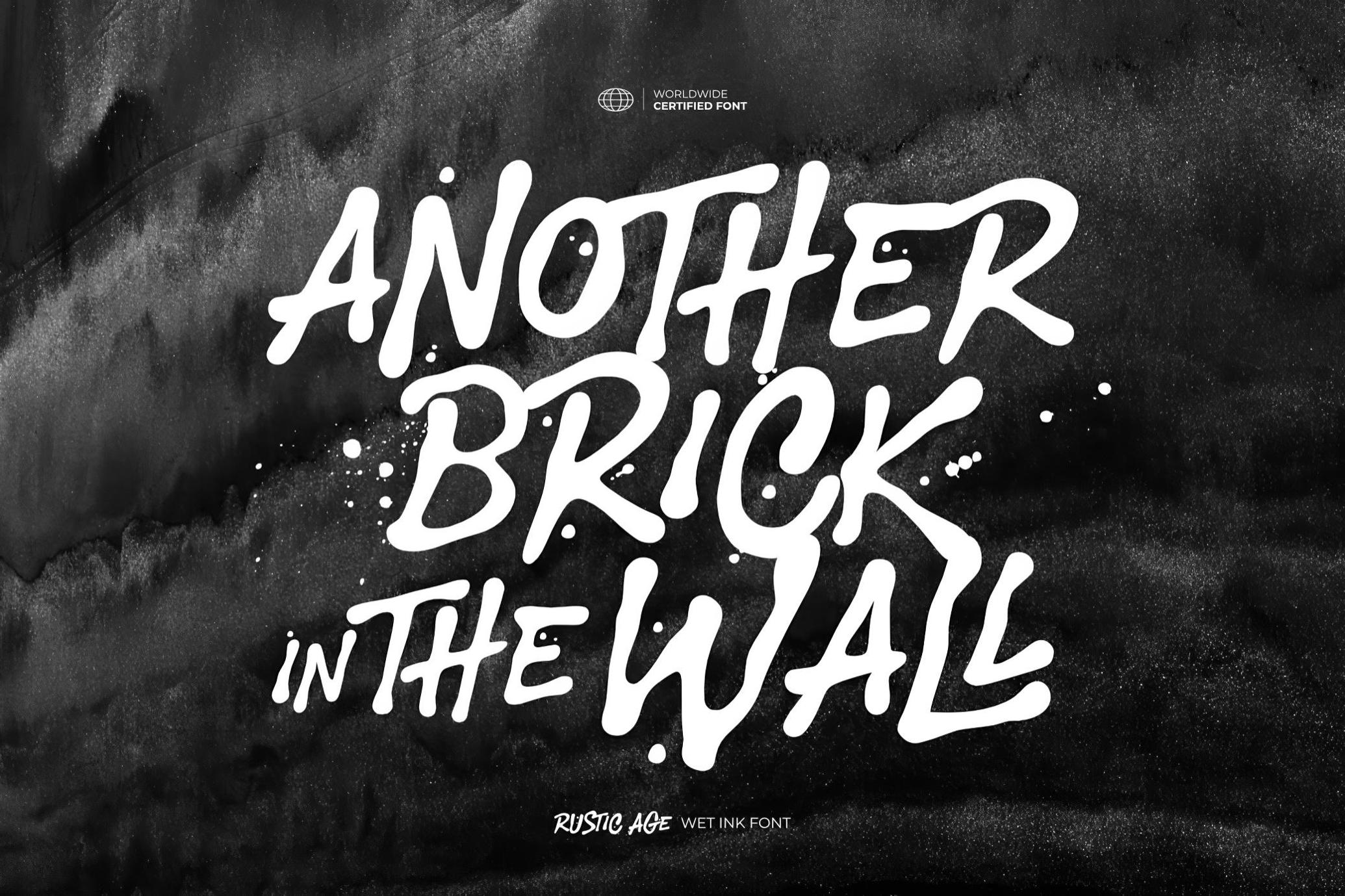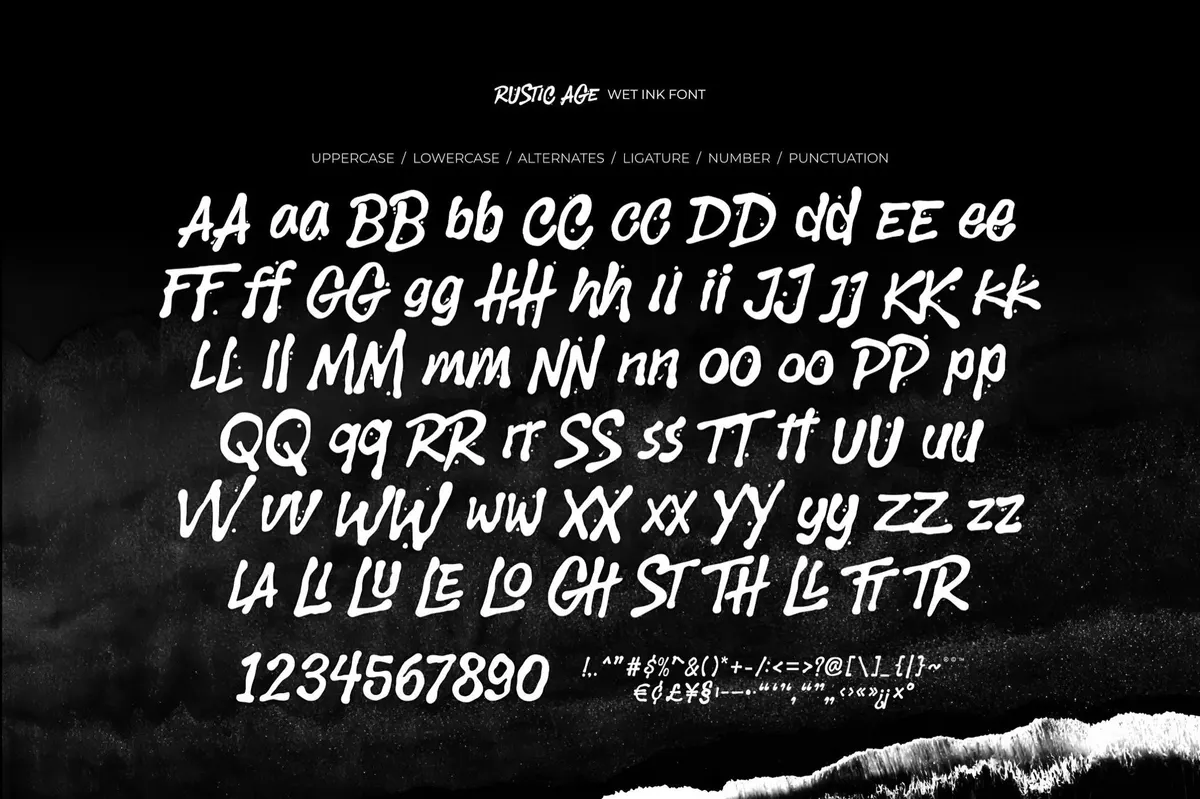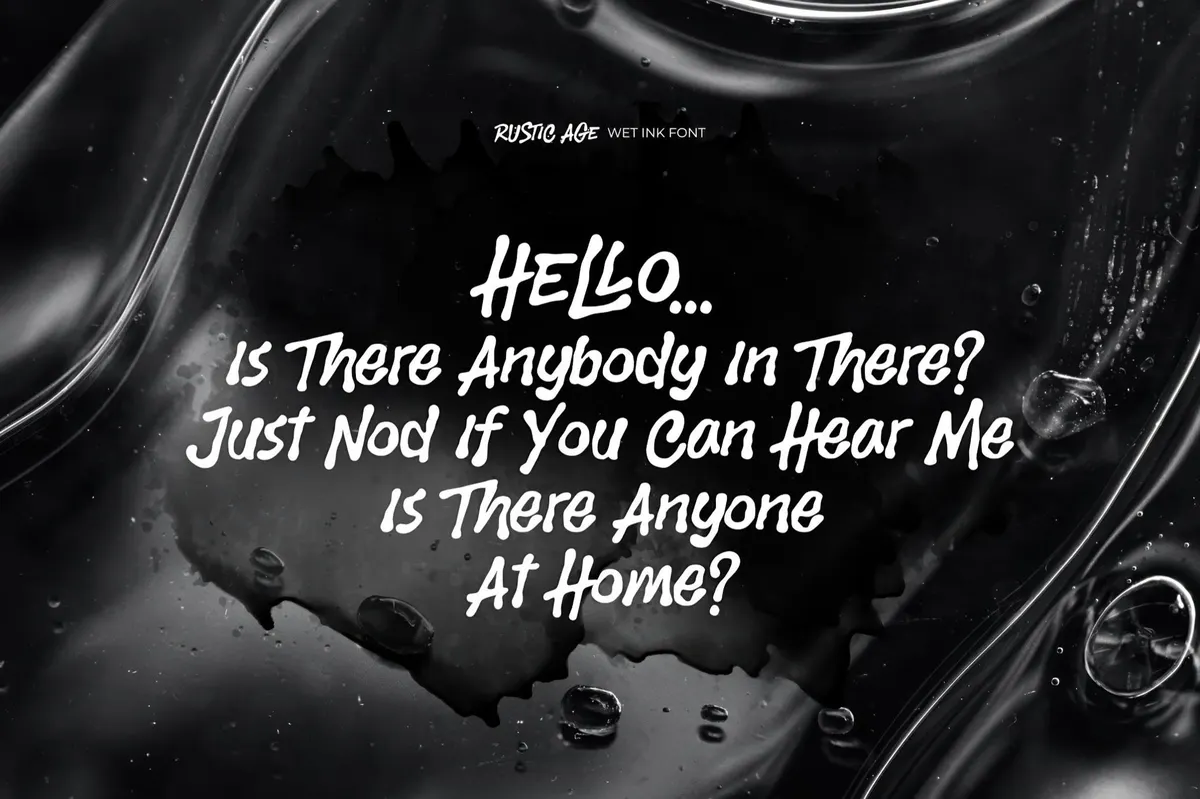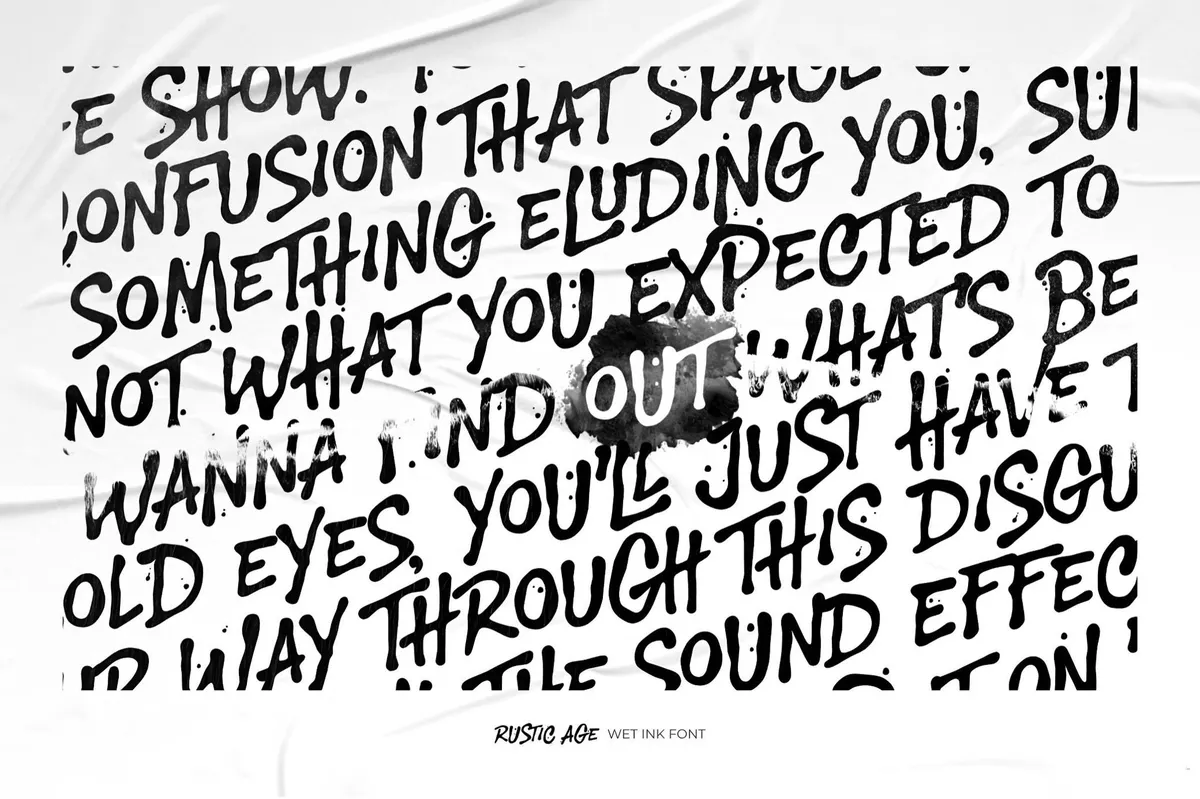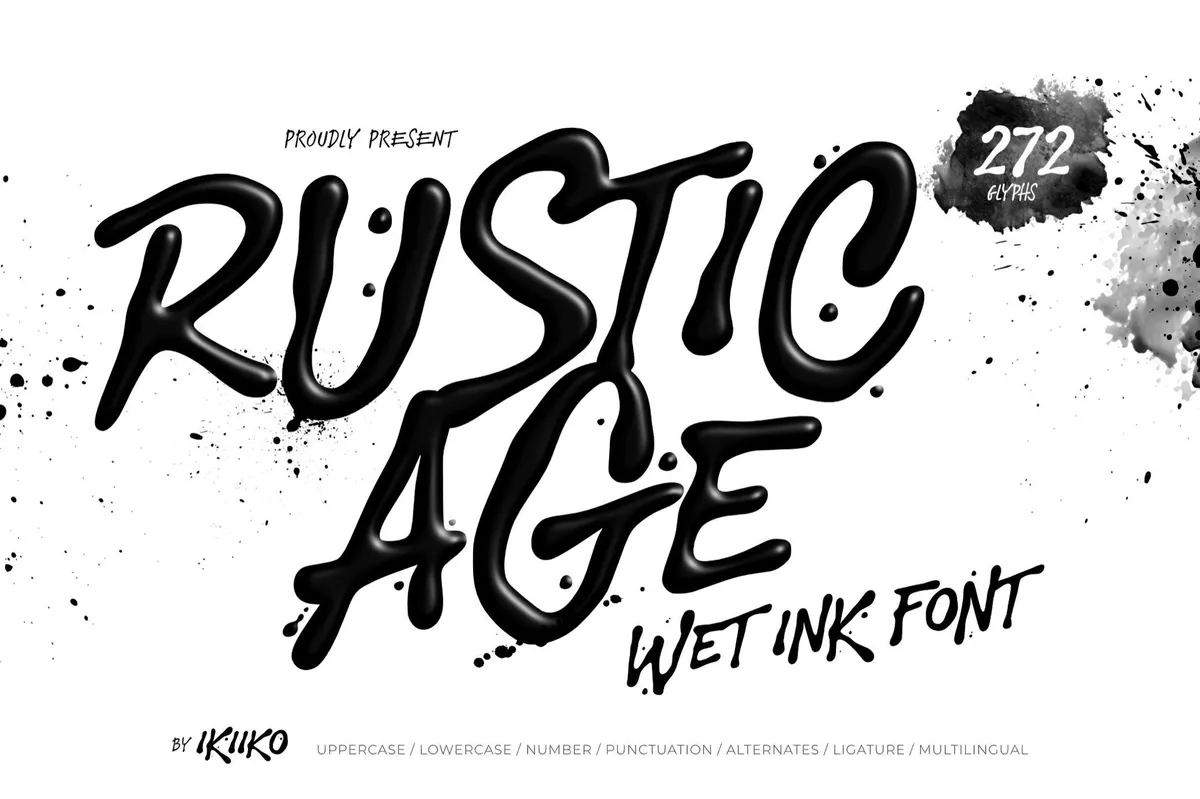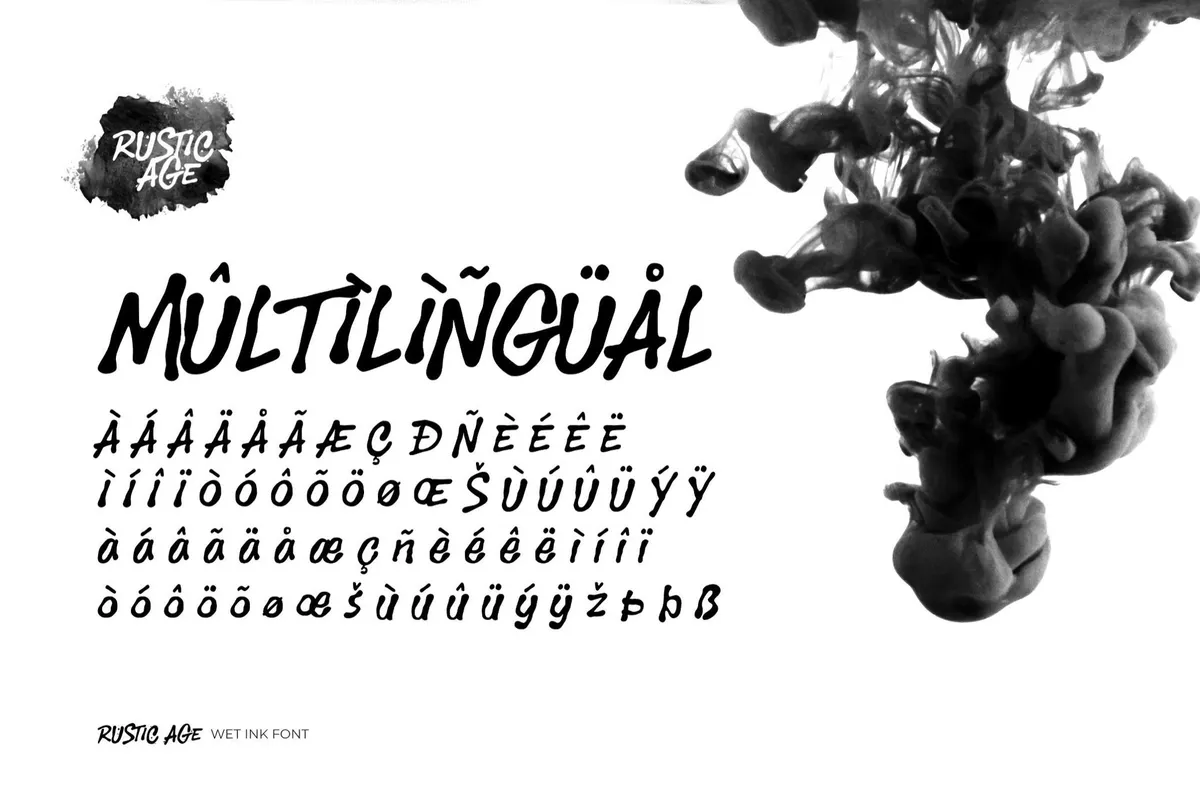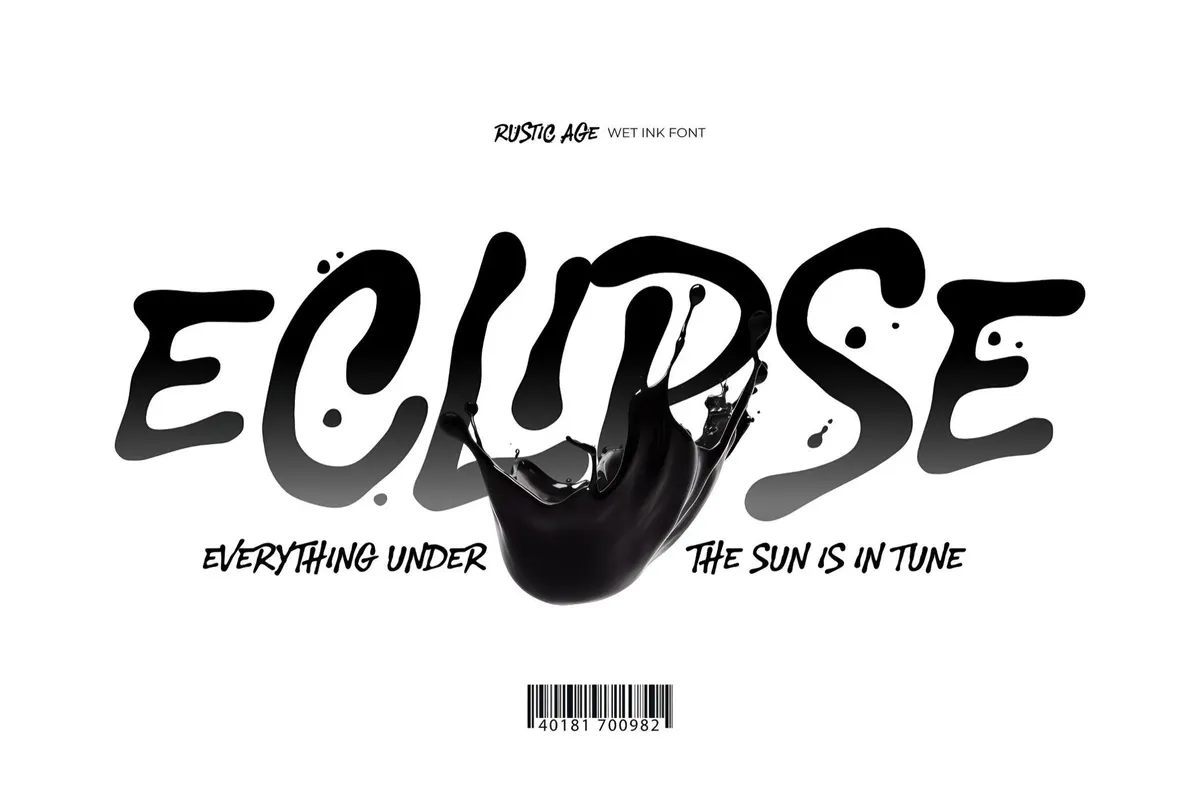
Rustic Age — Wet Ink Font
Anecdotally, the Rustic Age has nothing to do with rustic aesthetics. It's just the opposite: industrial, grunge, dynamic, and dripping like petroleum. The solid underground, smokestack look paired with quick casual strokes make it an option for streetwear brands, posters, movie titles, magazine layouts, and quotes. It will spread the mood even as a text overlay to a background image. Rustic Age provides a complete character set, plus ligatures, alternates, and multilingual support.